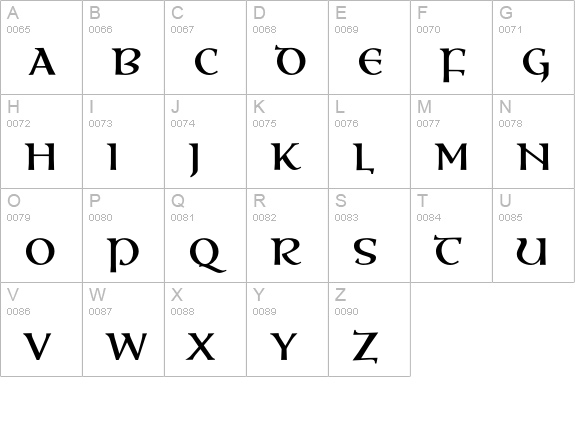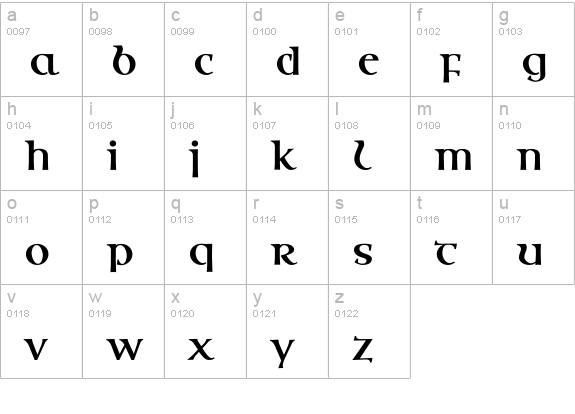
OssianEF-Bold is a strong, high-contrast variant in the OssianEF typeface family \xE2\x80\x94 well suited to headlines, attention-grabbing titles, and strong calls-to-action.
The OssianEF-Bold font is a bold and striking typeface that exudes confidence and modernity. With its strong and clean lines, this font is perfect for making a bold statement in any design project. The OssianEF-Bold font is versatile and can be used for a variety of purposes, from headlines to branding to promotional materials. What makes the OssianEF-Bold font even more appealing is that it is available for free download at FontsMarket.com. This means that you can easily access this stylish and eye-catching font without having to spend a dime. Whether you are a designer looking to add a new font to your collection or a business owner wanting to enhance your branding, the OssianEF-Bold font is a great choice that won't cost you anything. Download it today and elevate your designs with this sleek and modern typeface.